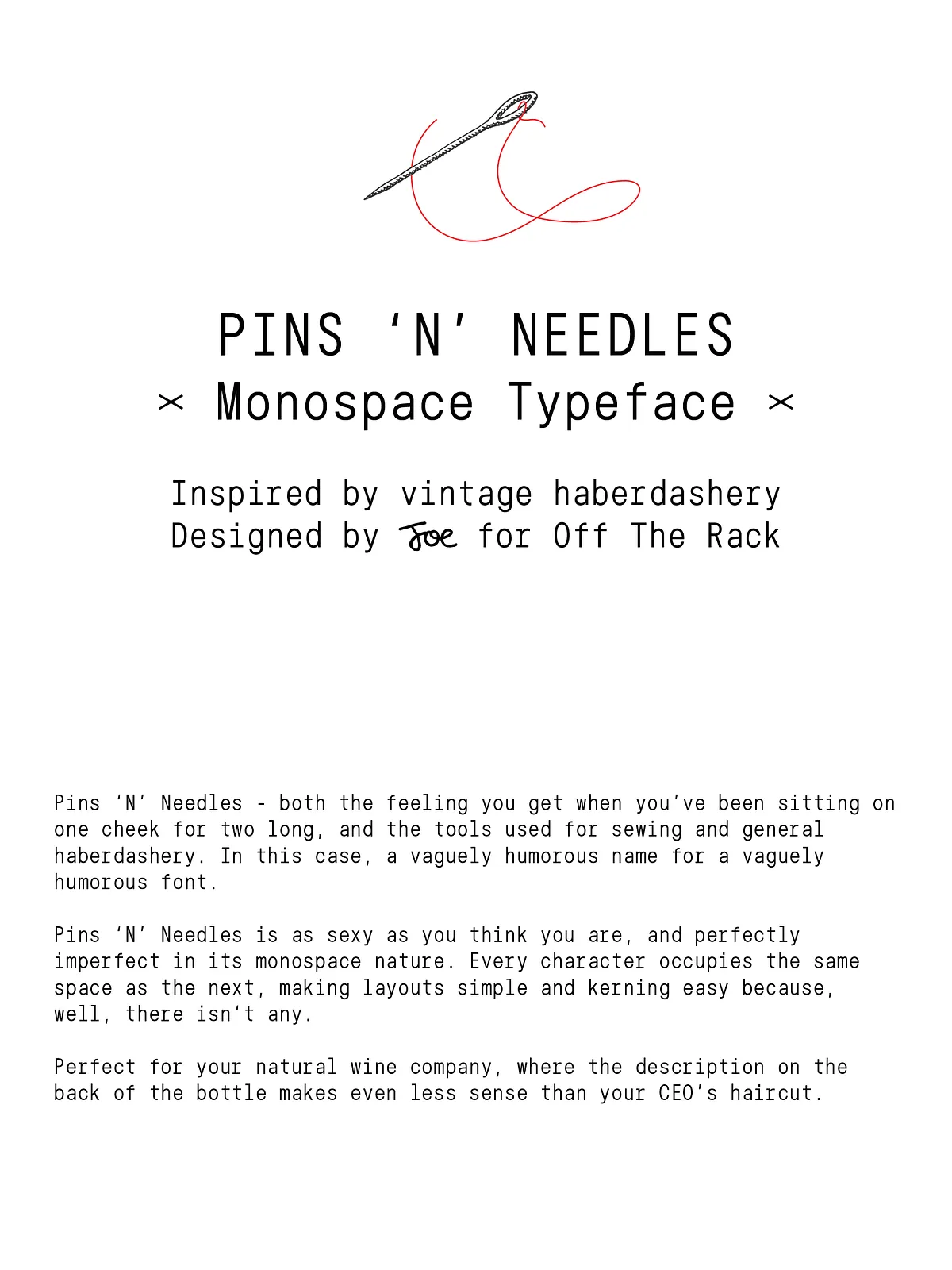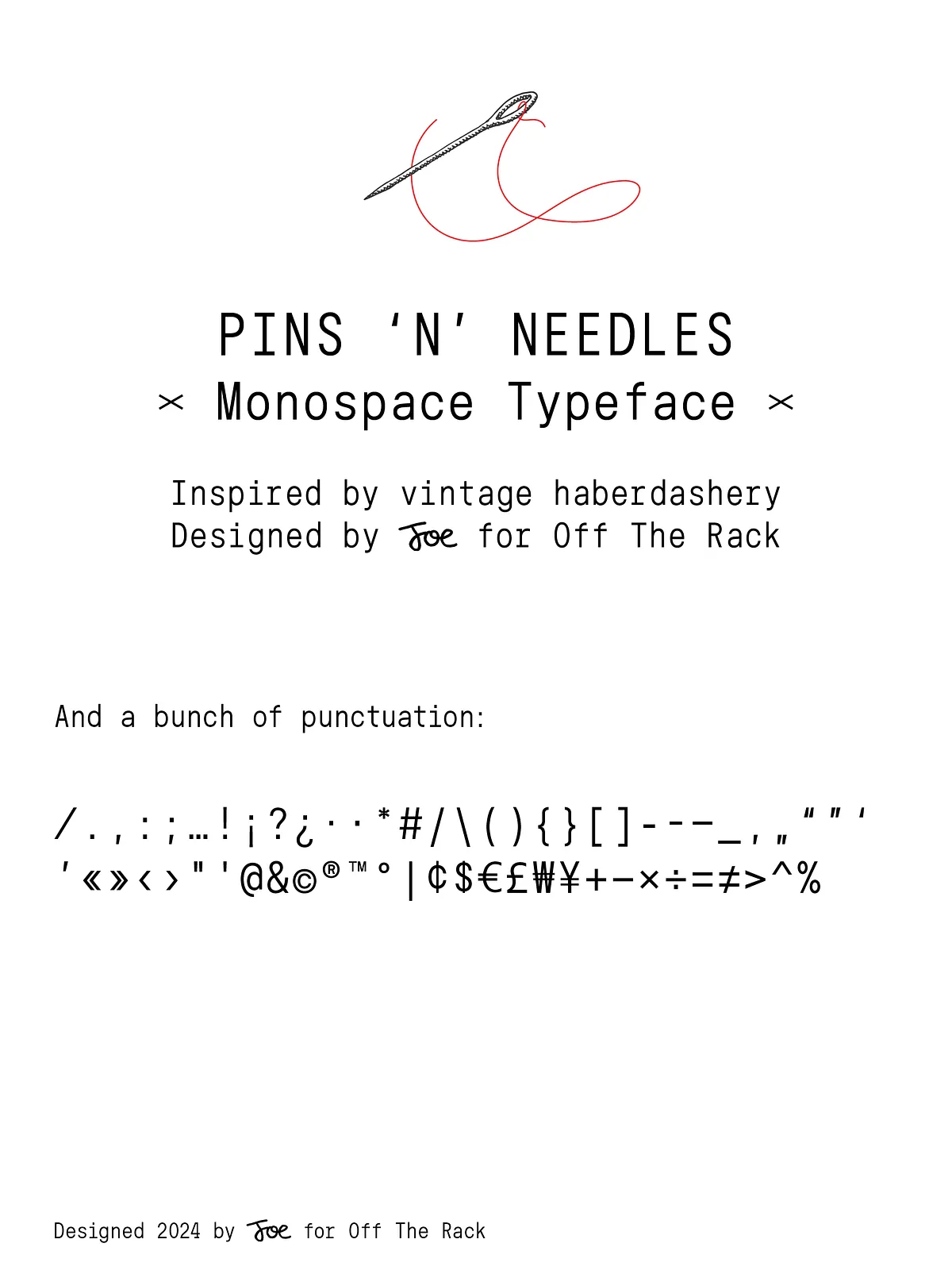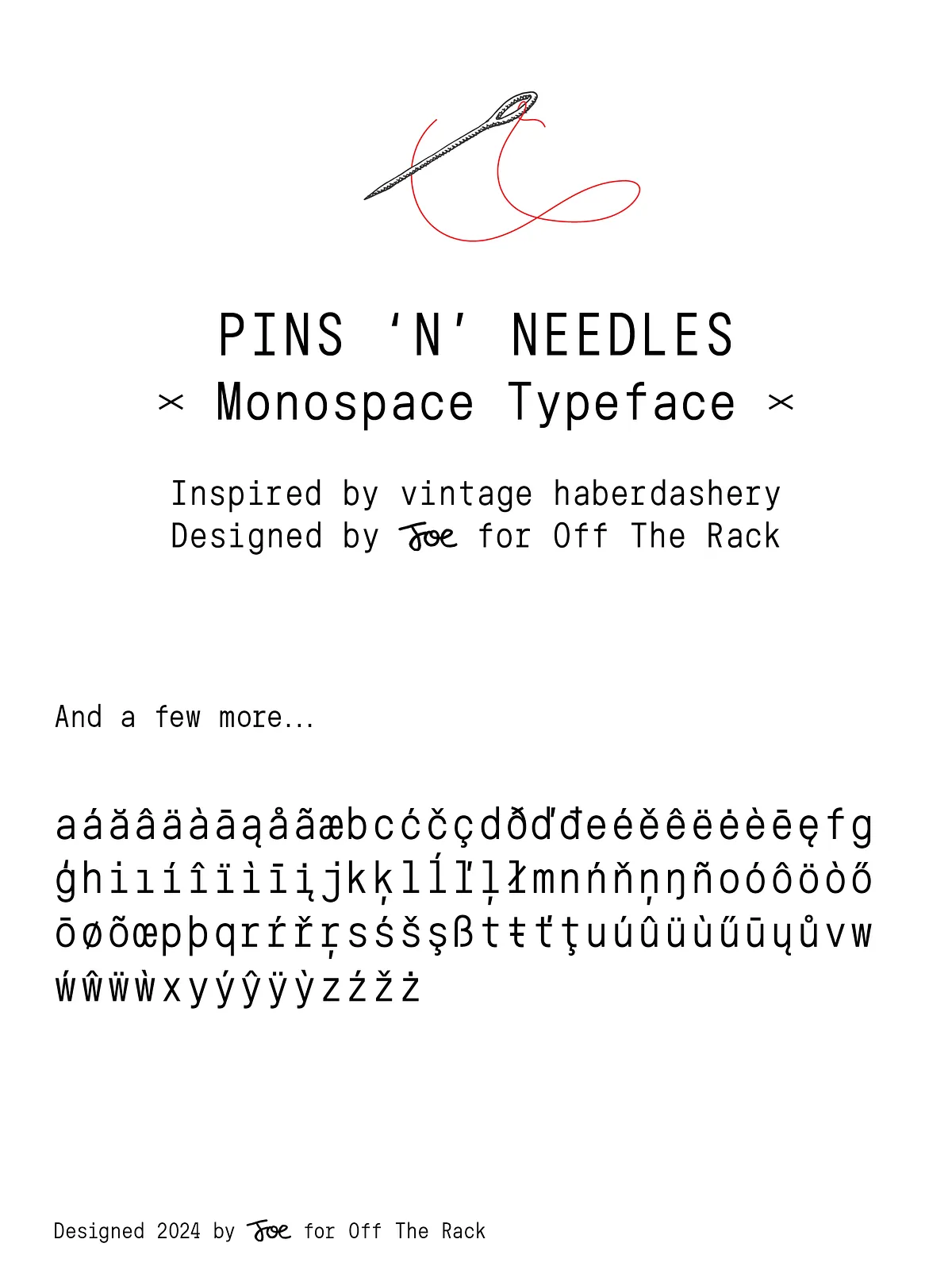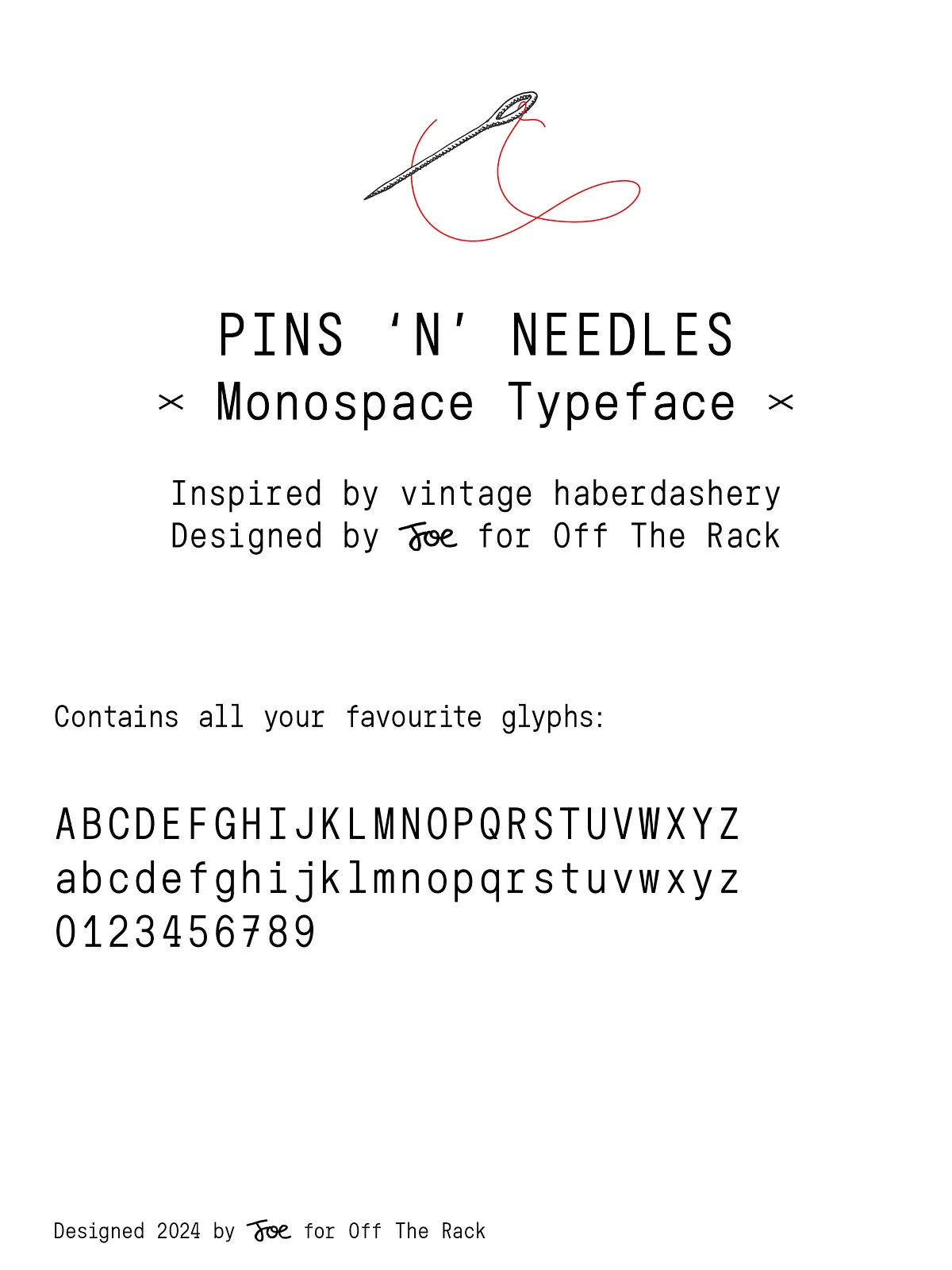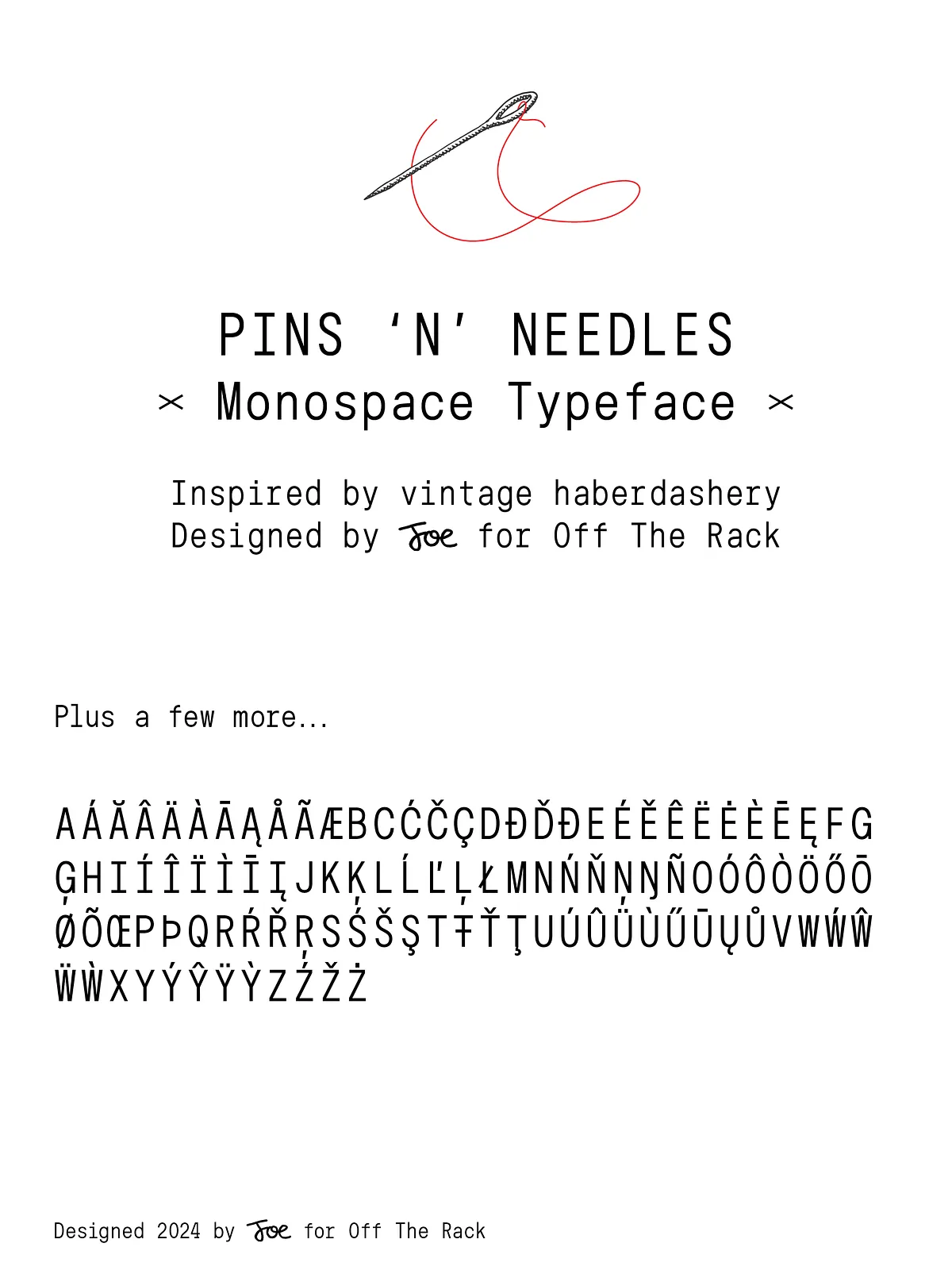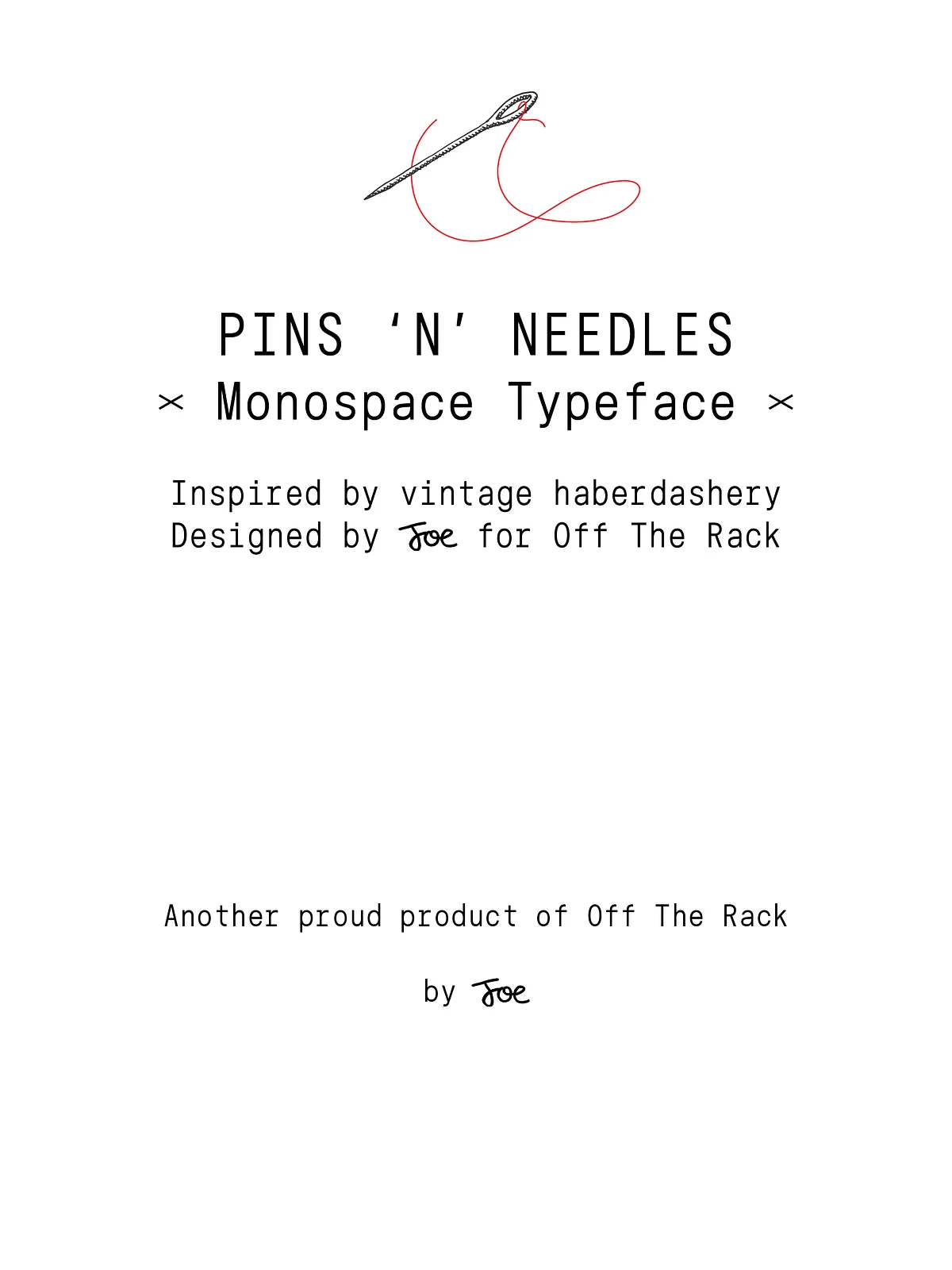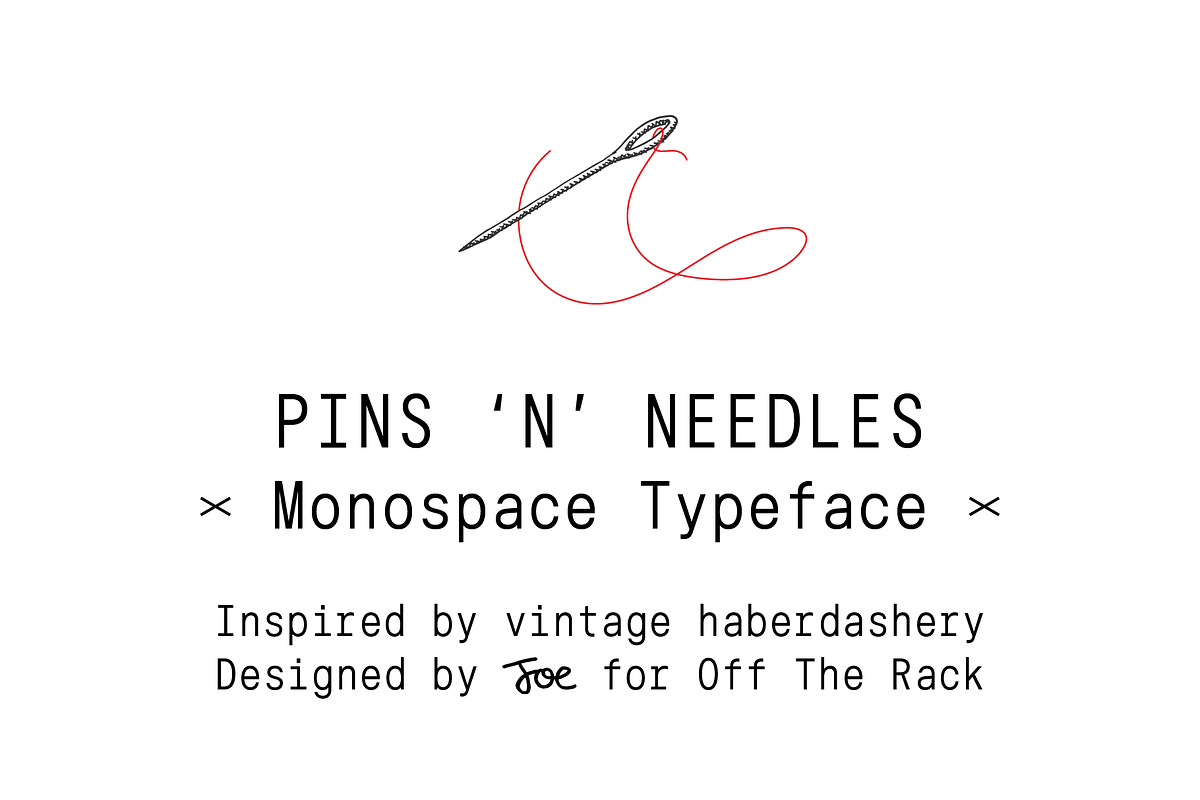
Introducing Pins N Needles — a bold, idiosyncratic monospace typeface that thrives in the weird, the stylish, and the slightly awkward. Originally conceived for those trendy, natty wine bars where the menu reads like poetry and the ambiance feels like a midnight conversation with a philosophy student, Pins N Needles is more than just a font — it’s a statement.
It’s weird. It’s clean. It’s sexy. It’s everything you wish you could be, and more. Crafted with a playful yet precise hand, this typeface dares to be different — and invites you to do the same. Whether you’re designing a menu, a web heading, or a brand manifesto, Pins N Needles brings personality, rhythm, and a touch of irreverent charm to every letter.
Monospace Magic: No Kerning, Zero Stress, Maximum Control
Pins N Needles is built on the foundation of monospaced geometry — every character occupies the same horizontal space. This means:
• Zero Kerning Hassles
No more painstakingly adjusting spacing between characters. Each letter sits perfectly in its own box, ensuring even, predictable layouts across any design platform. Whether you’re working in Figma, Photoshop, or WordPress, your text flows with natural, balanced rhythm — no manual tweaks required.
• Seamless Alignment & Grids
Simplify your workflow. Align text in columns, tables, or coding-inspired layouts with ease. The consistent width of each character makes it an ideal choice for tech-inspired branding, developer-facing copy, or any design where alignment precision is key.
• Instant Visual Rhythm
Use the uniform structure to create dynamic, rhythmic text blocks — perfect for poetic product captions, social media posts, or web copy that needs to stand out without screaming.
Confidently Weird: A Typeface That Adapts Without Losing Its Soul
Pins N Needles is a chameleon. You might see it in a boutique wine bar menu, and then find yourself using it for a startup pitch deck, a streetwear brand name, or even an art gallery wall text. It looks at home in playful spaces, but it doesn’t flinch in professional settings.
It’s the font that knows it’s different — and loves it. It doesn’t try too hard to be normal. Instead, it leans into its quirks, delivering a tone that’s bold, cheeky, and refreshingly authentic.
Perfect for Creative Minds and Risk-Taking Designers
This typeface was built for creators who don’t want to play it safe. Use Pins N Needles to:
- Design wine bar menus with clever, tongue-in-cheek descriptions that surprise and delight.
- Style web copy with rhythm and attitude on landing pages, blogs, or e-commerce product titles.
- Create branding for cool, emerging brands in fashion, lifestyle, or experiential spaces.
- Build playful digital content for social media, banners, or presentations that break the mold.
- Enhance coding-inspired visuals — perfect for tech art, minimalist web design, or digital installations.
Professional-Grade Features, Playful Personality
Beneath its quirky charm lies a foundation of solid design principles:
• High-Contrast, Clean Lines
Each stroke is sharp and deliberate, ensuring legibility at small sizes while maintaining visual interest at large display sizes.
• Full Character Set
Supports English, French, Spanish, German, Italian, and more — with complete punctuation, numerals, and special symbols.
Pins N Needles isn’t just a font — it’s permission to be a little strange. To enjoy the discomfort of sitting on your cheek longer than you should, until you finally smile at your own weirdness.